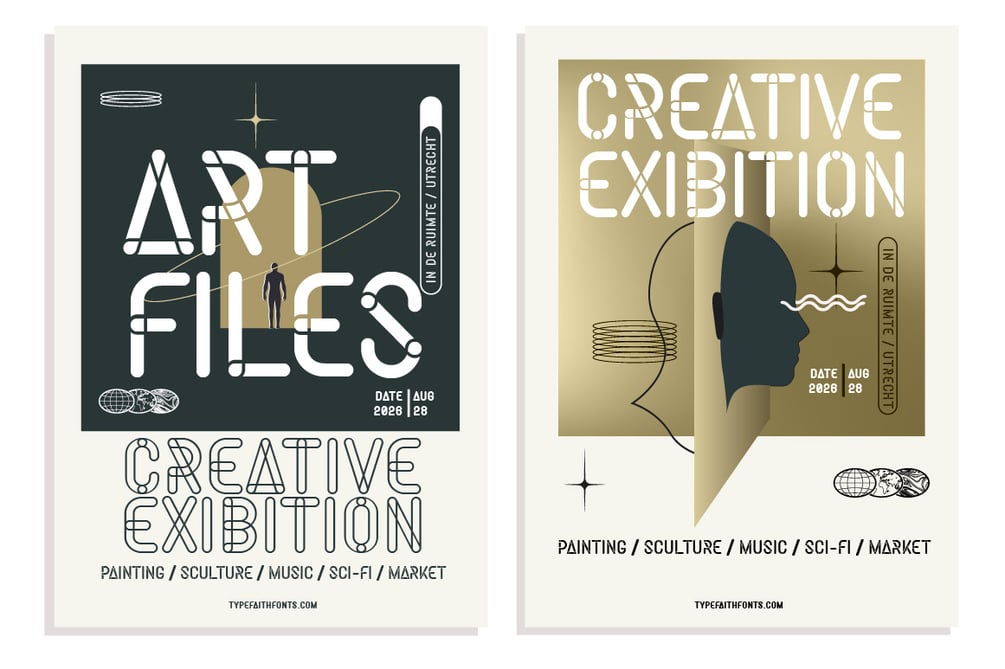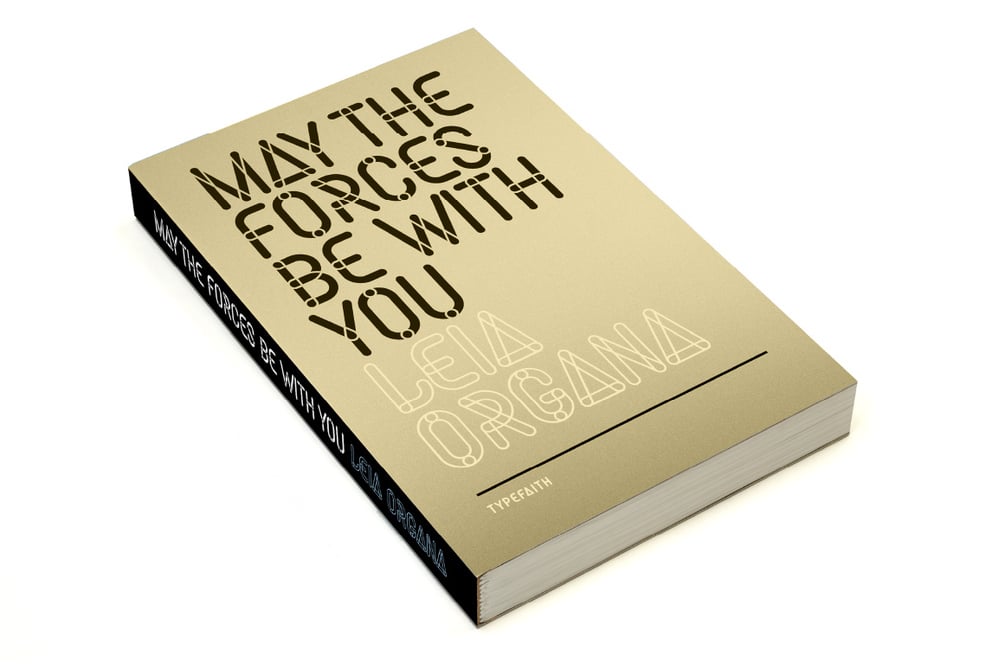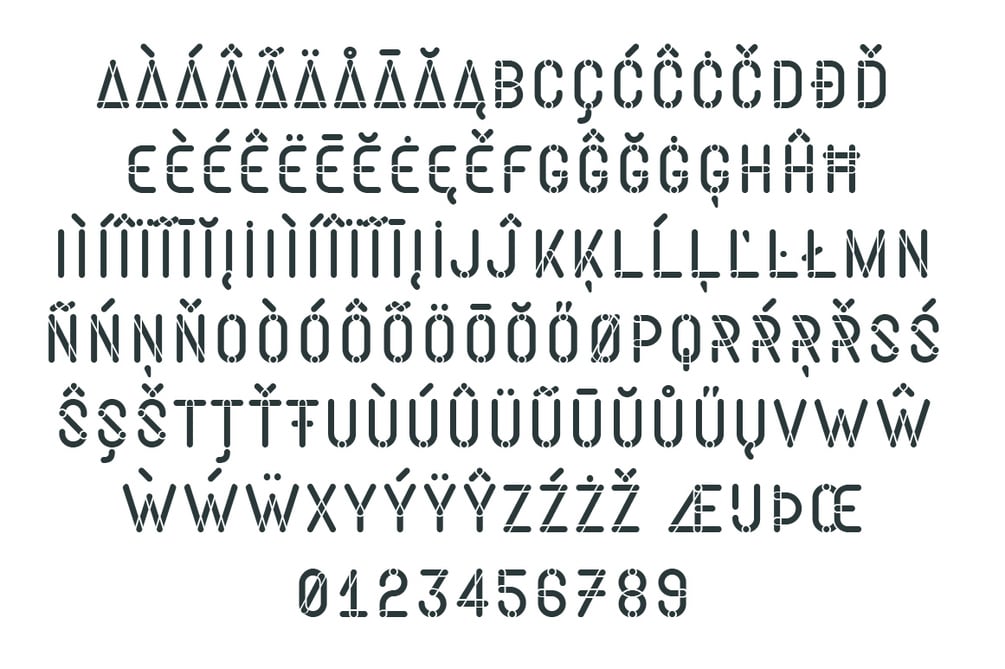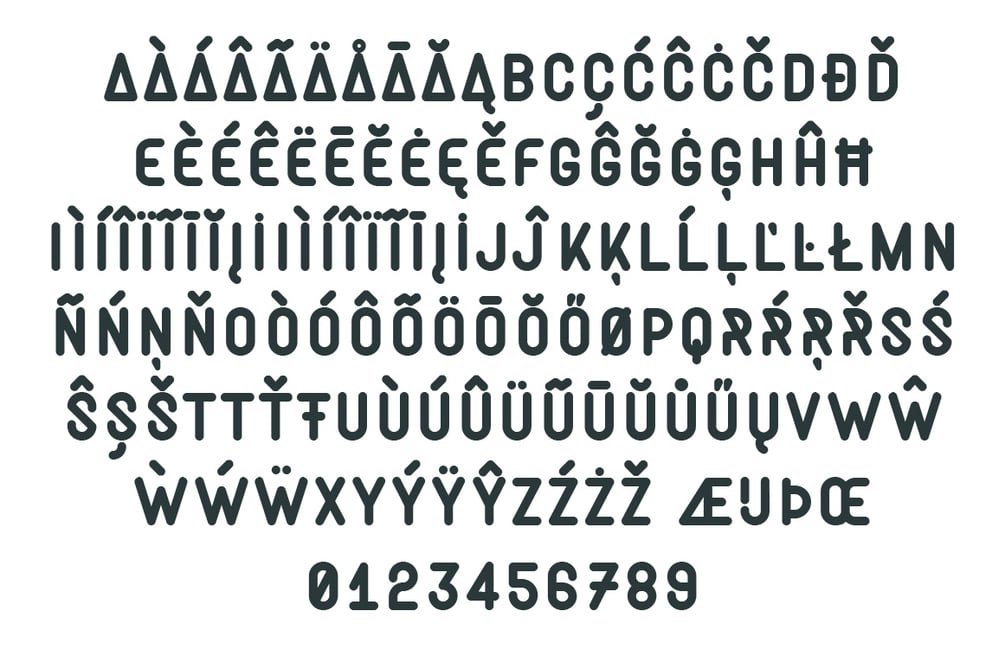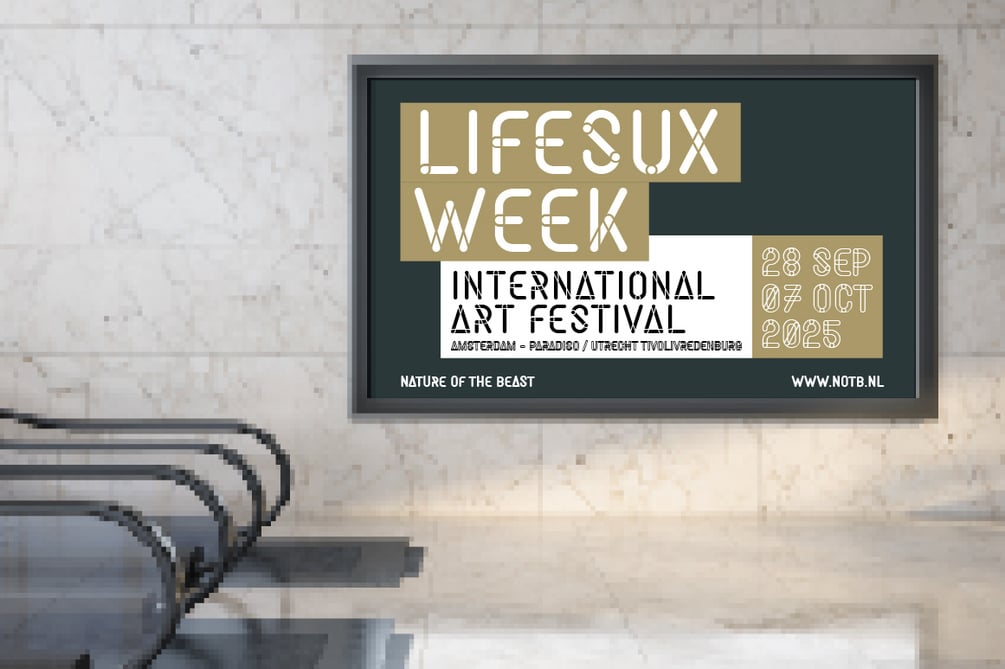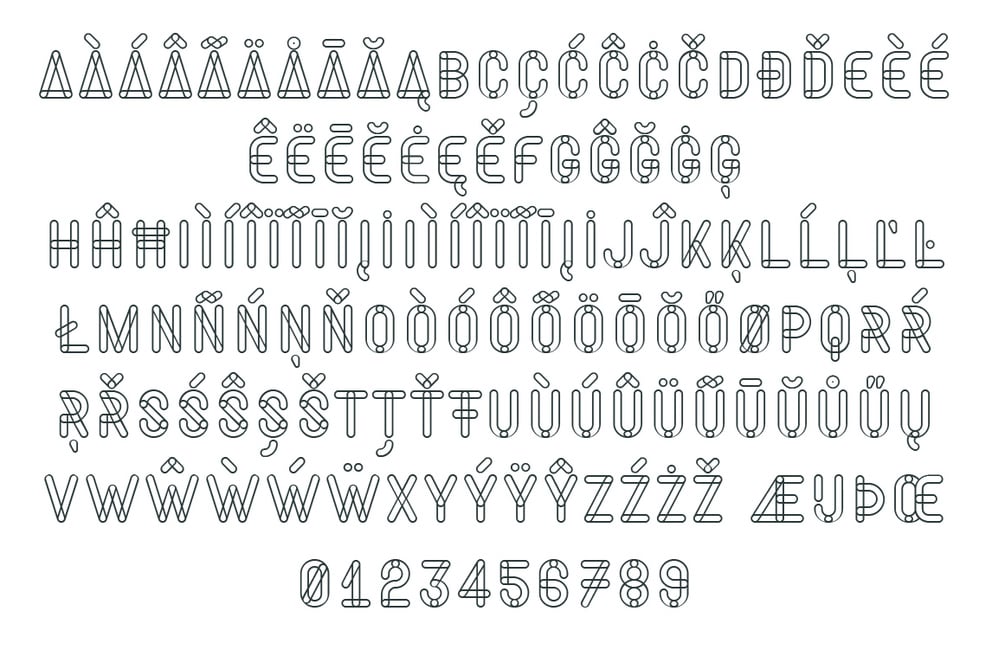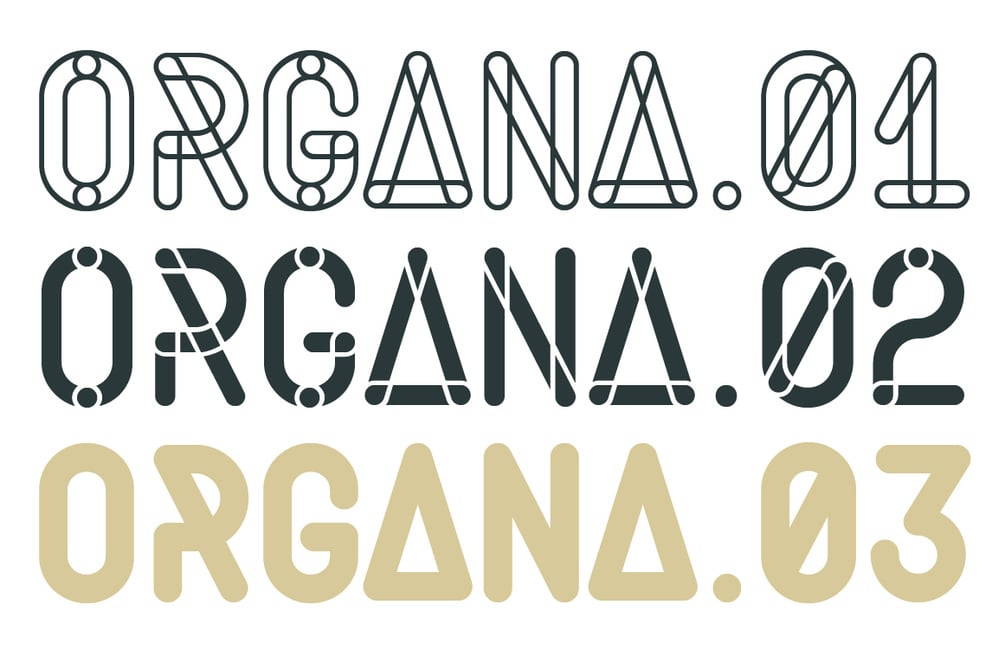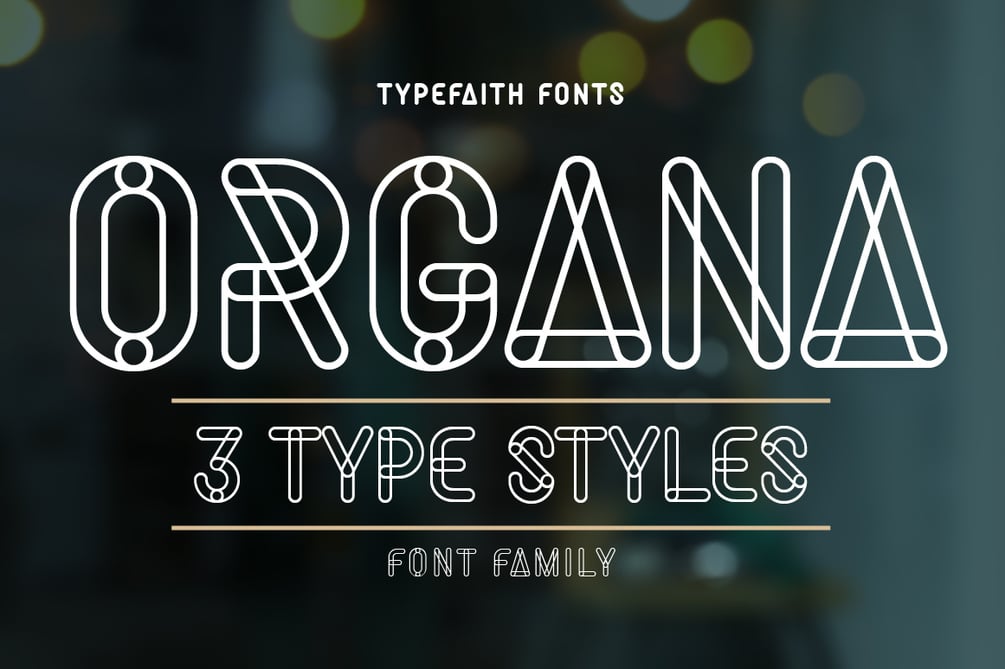
Organa - stylish geometric font family
Organa, a stylish geometric font family that creates a new feel for your designs. Organa is a unique and creative font that can be used for logo design and branding, posters, flyers, and book covers. Organa will help you shake off the old feel and create something new. It comes in three styles that are easy to combine.
Organa will help you shake off the old feel and create something new.